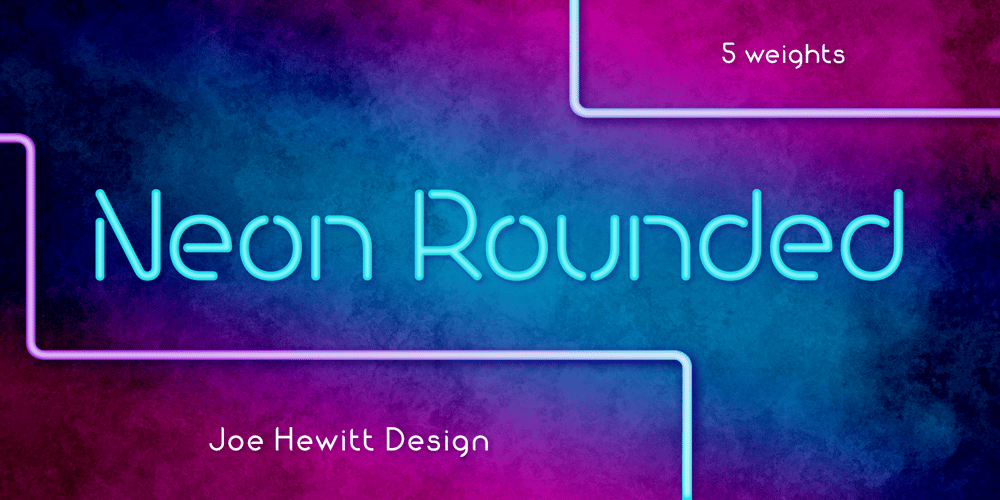
Neon Rounded Font Family was designed by Joe Hewitt and published by Joe Hewitt Design. Neon Rounded contains 5 styles and family package options. Neon Rounded is a rounded monoline typeface inspired by retro neon light bulbs often used in signage. Neon bulbs were first seen back in 1910 in Paris. They later became popular in 1930s New York, especially on Broadway and the Las Vegas strip.Although Neon Rounded was designed with eye-catching signs in mind, its possible usage is vast. Clothing brands, road signs, logos and advertising. The heavier weights lend themselves to children’s books and toys, while the lighter weights provide a more modern, futuristic feel.The typeface contains lower and uppercases in five weights: Light, Regular, Medium, Semi-bold and Bold. There are also alternatives for most letters and all numbers.The glyph set includes all languages covered in Basic Latin, Latin-1 Supplement and Latin Extended-A scripts.